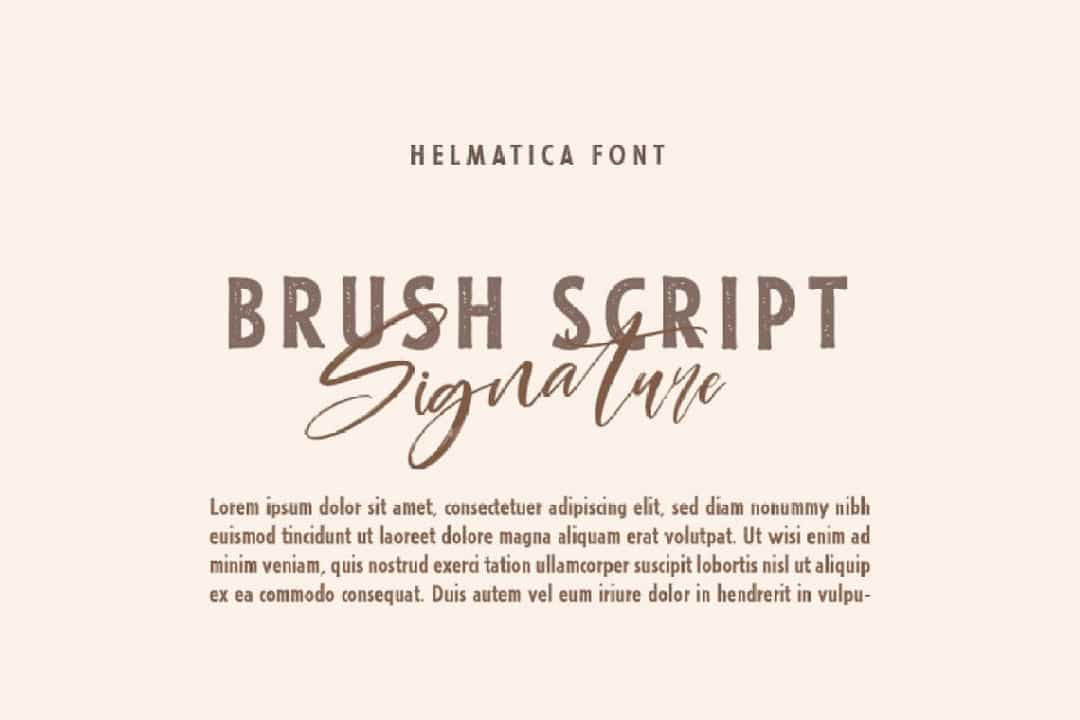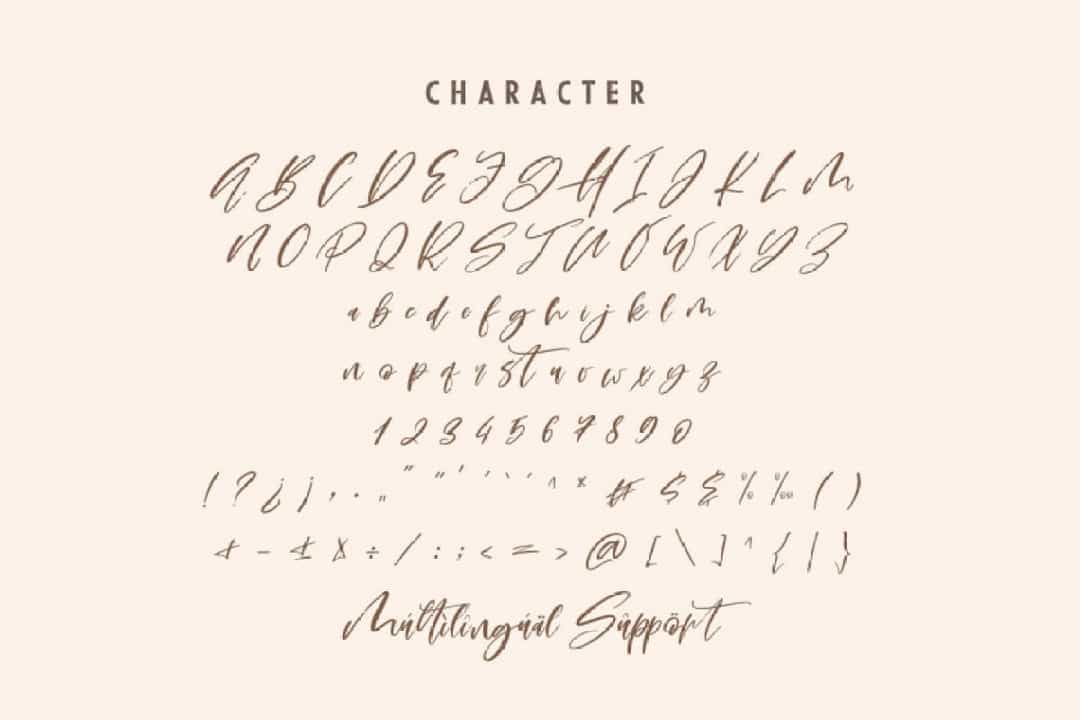
Helmatica’s elegant style features flowing lines and intricate artistic flourishes to evoke feelings of grace and beauty, perfect for wedding invitations, high-end branding or other sophisticated styles. Scriptina adds an air of elegance to any design project!